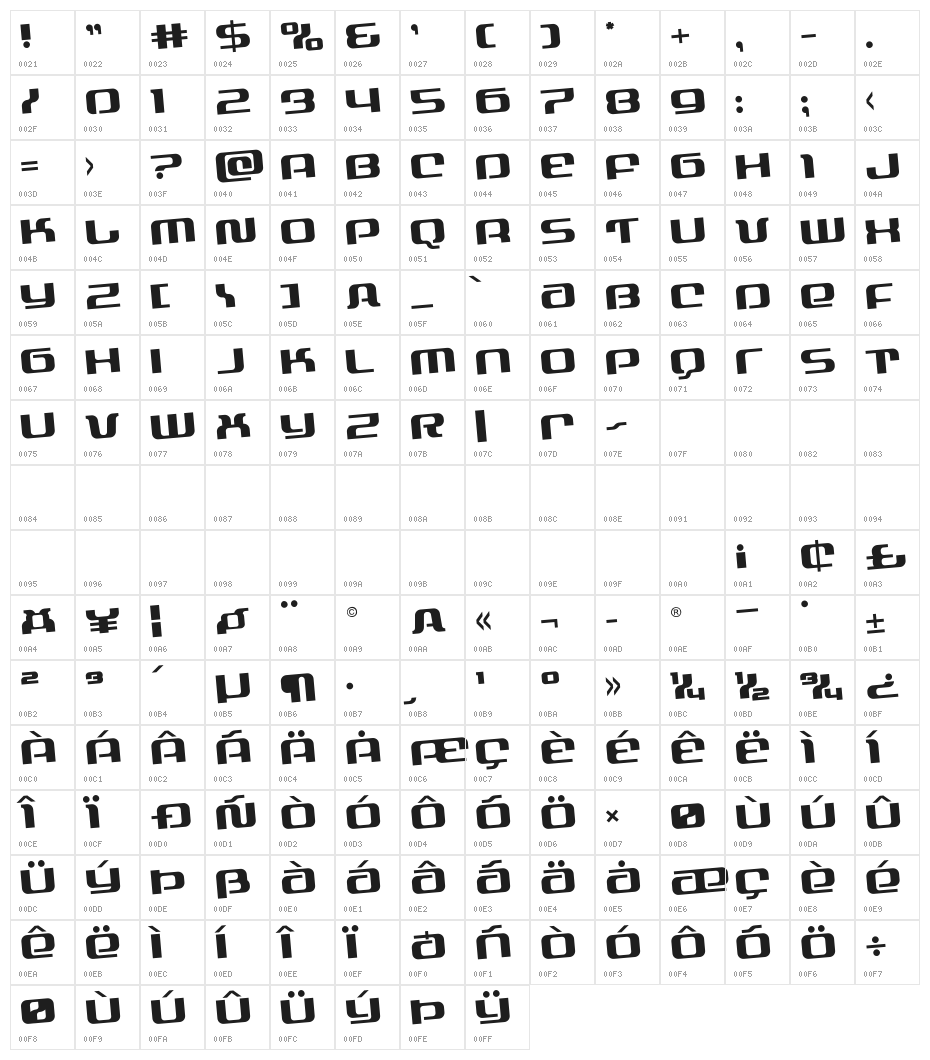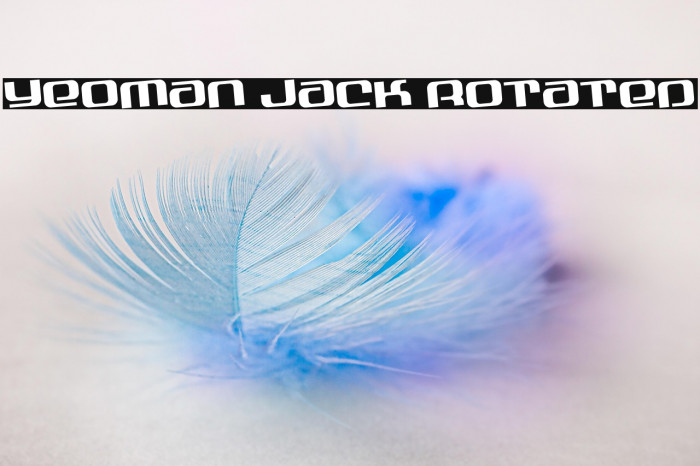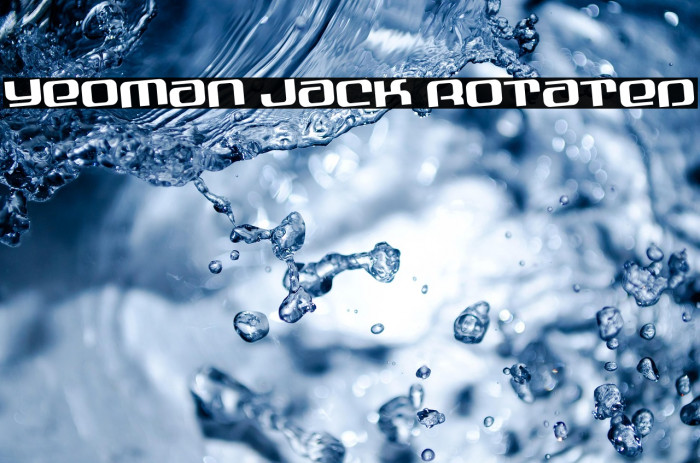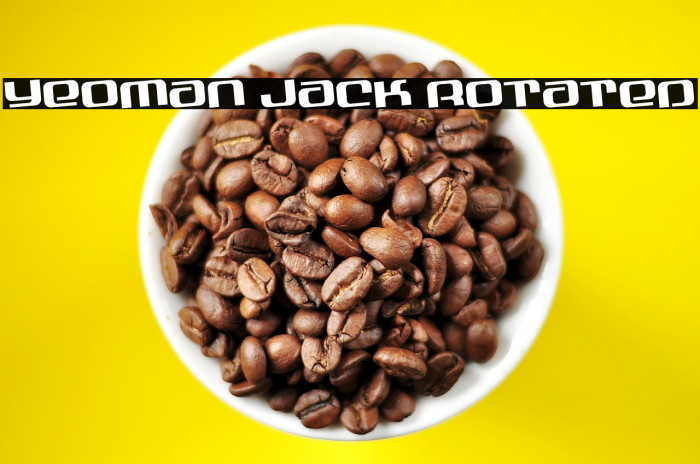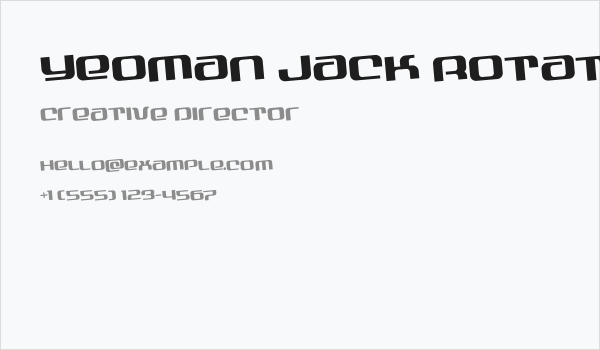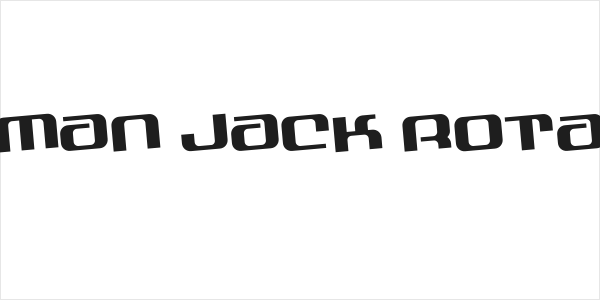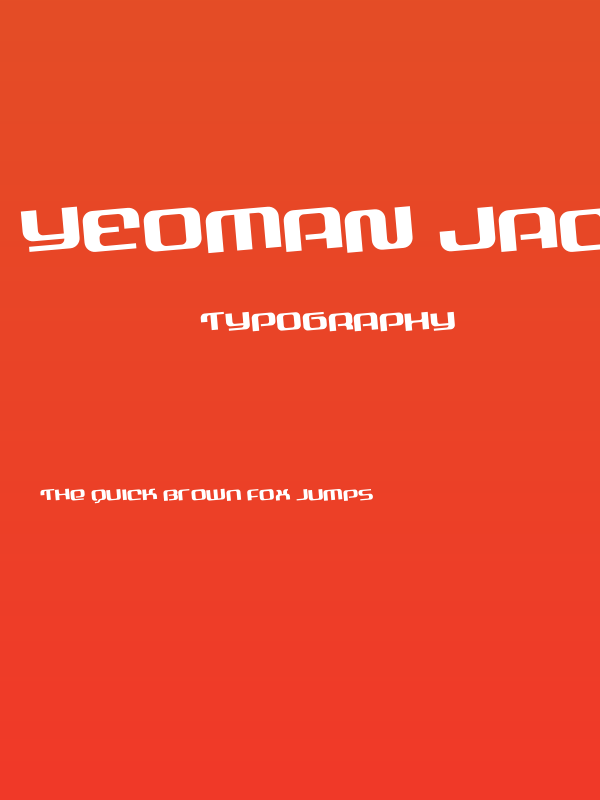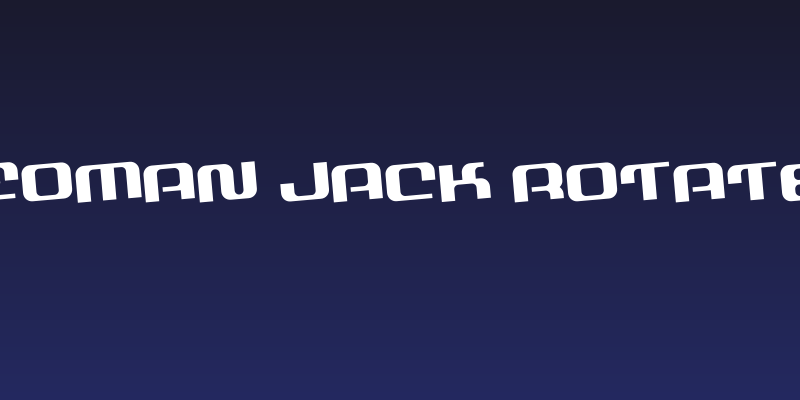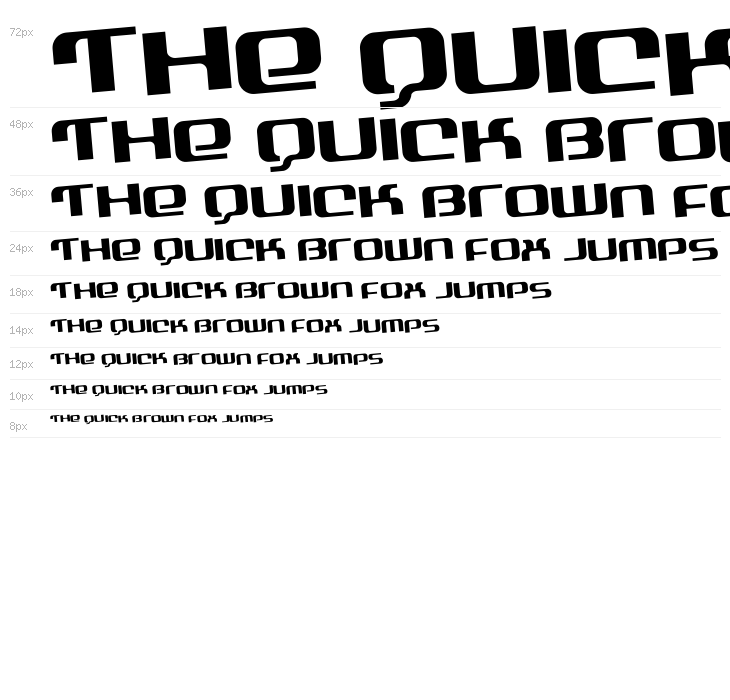
Yeoman Jack Rotated Font
Yeoman Jack Rotated Description
This font features a bold and futuristic design, characterized by its angular and geometric letterforms. The characters have a distinct slant, giving them a dynamic and forward-moving appearance. The strokes are thick and consistent, with minimal variation in width, contributing to a strong and impactful visual presence. The font's unique style is further enhanced by its slightly condensed letter spacing, which adds to its modern and edgy aesthetic. The overall design is suitable for projects that require a bold statement, such as technology-related branding or modern advertising campaigns.